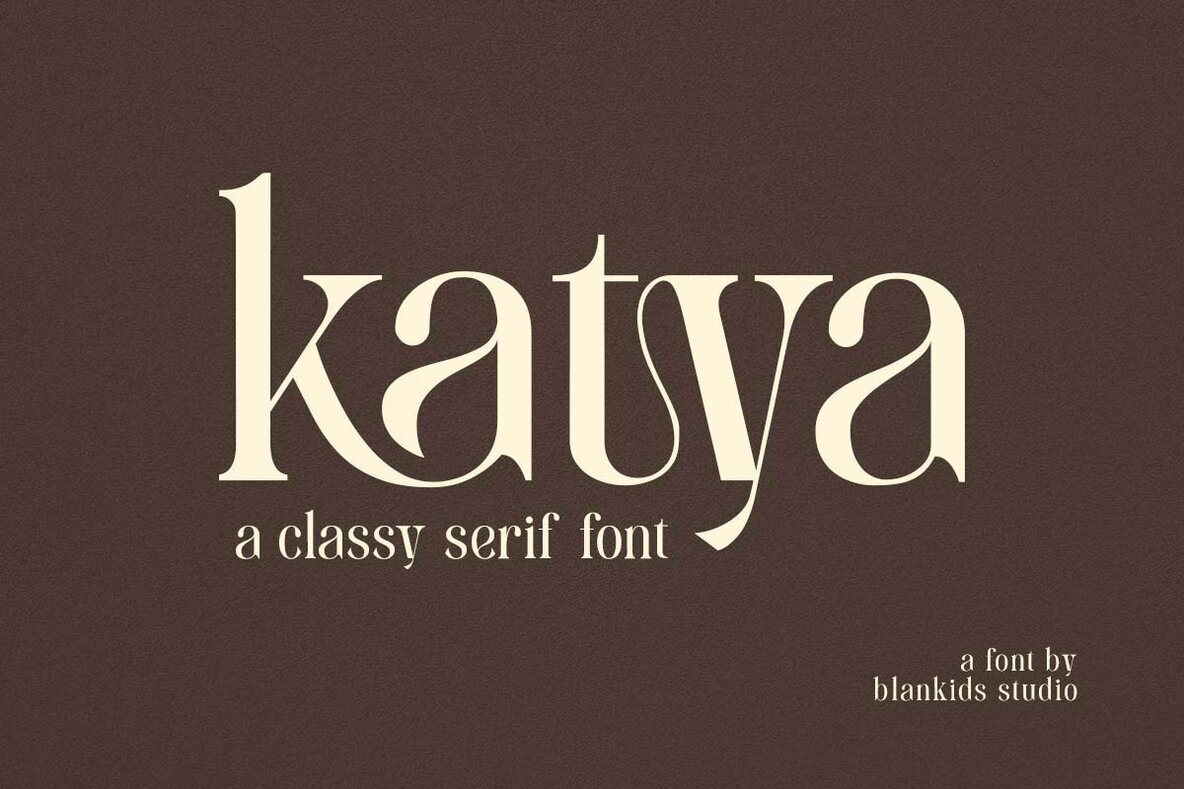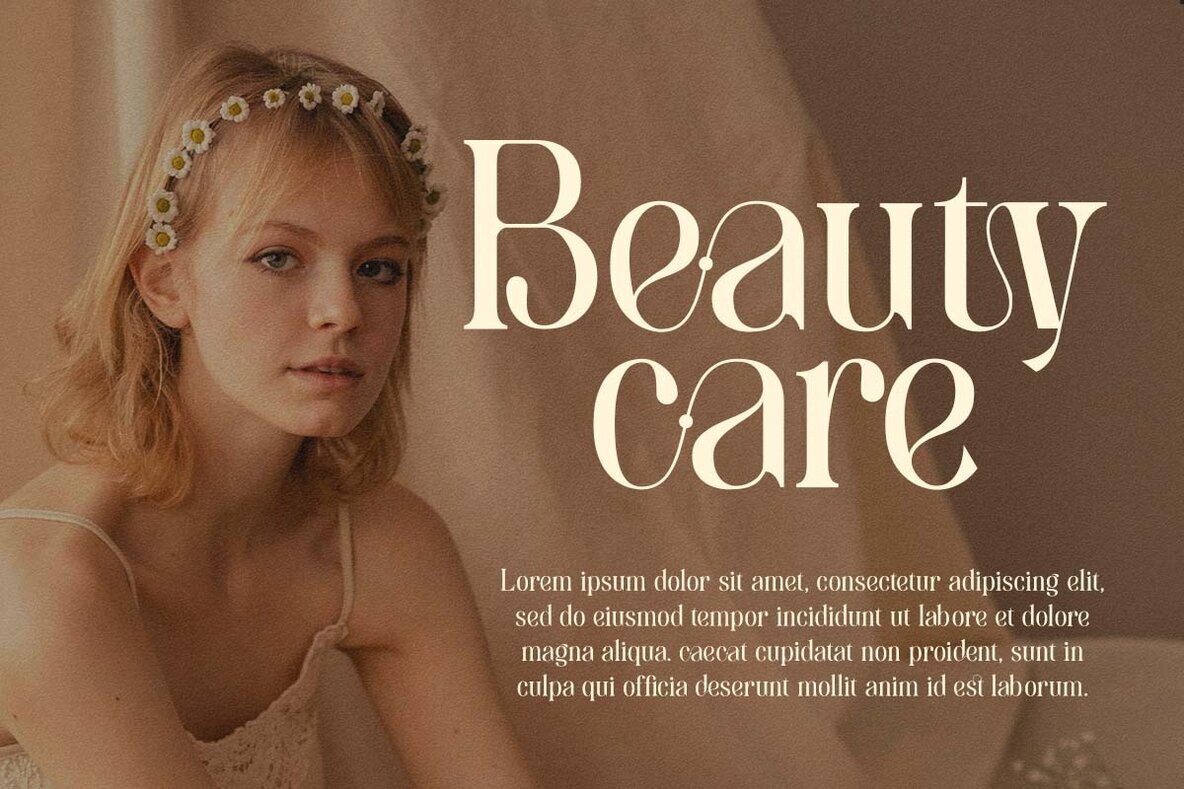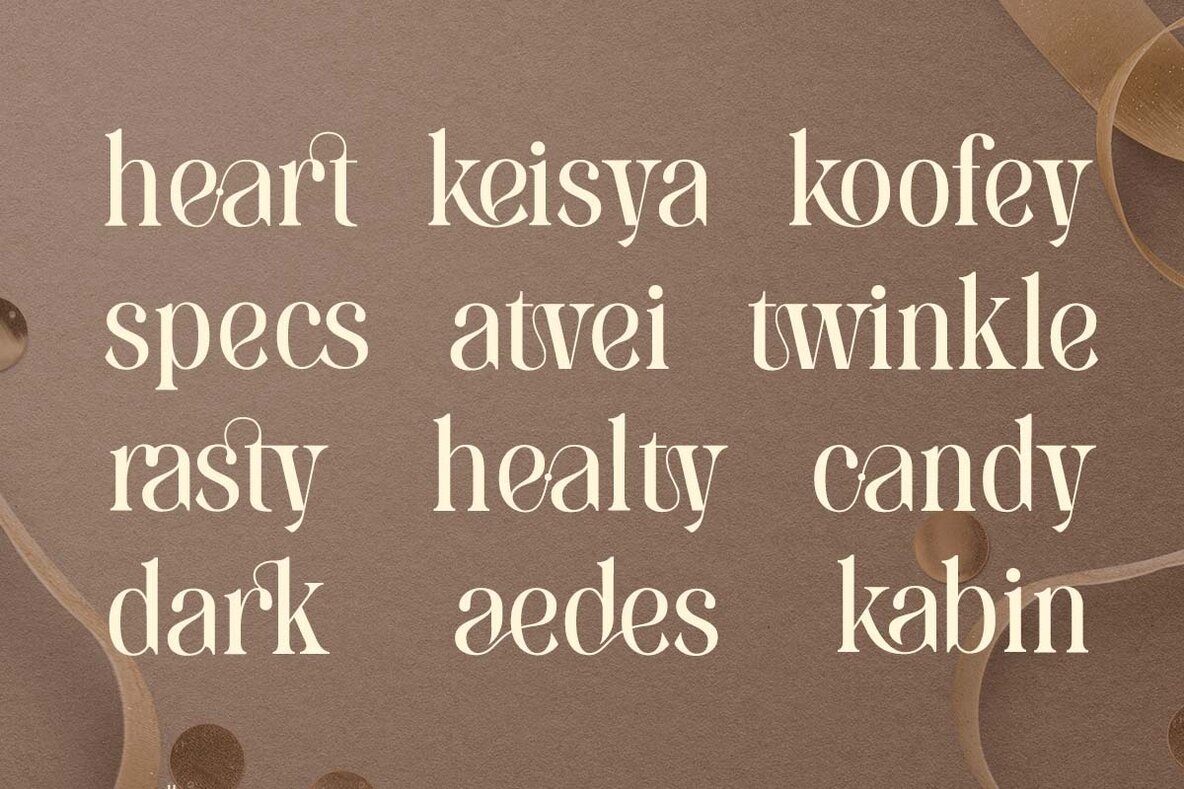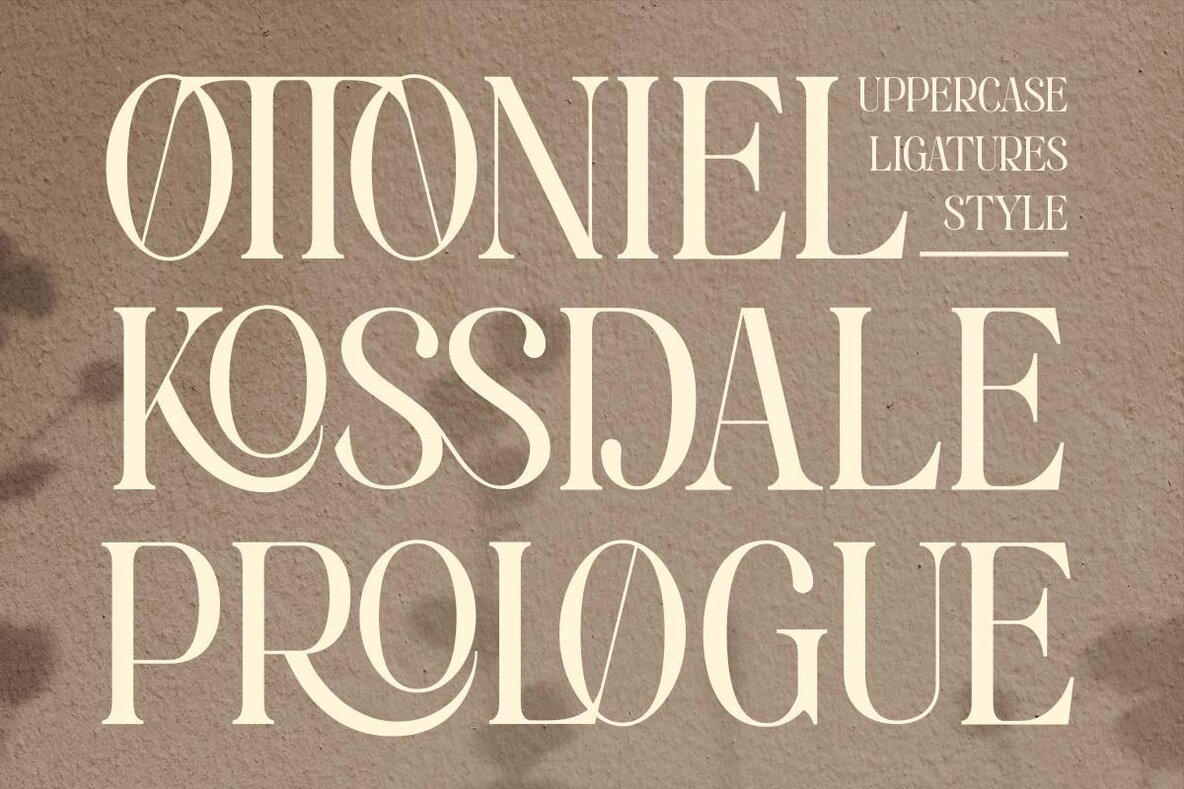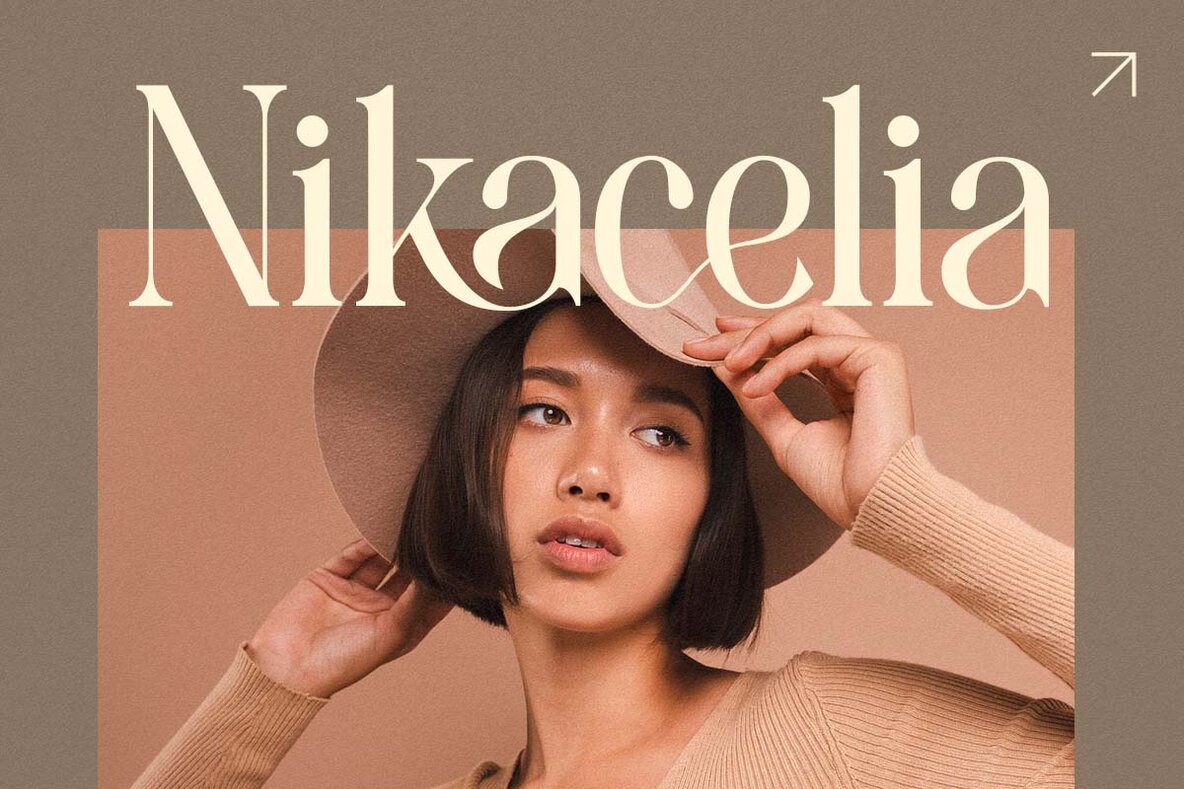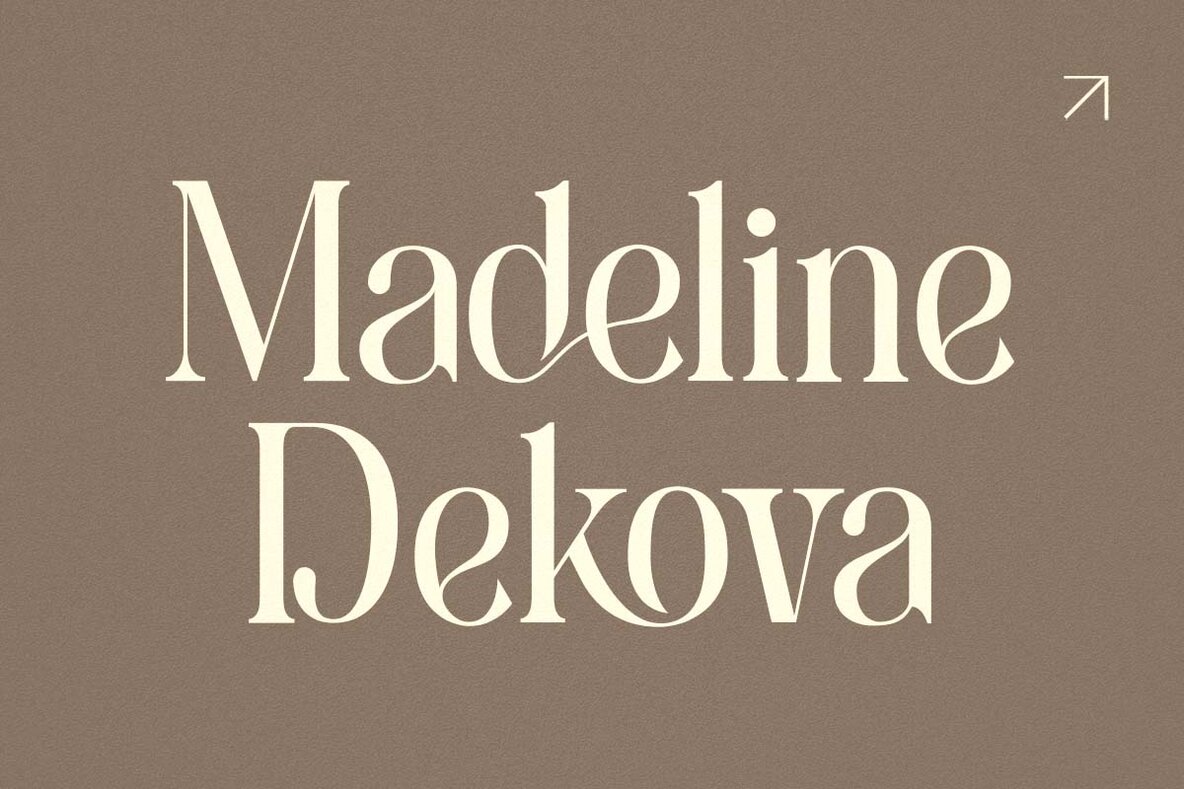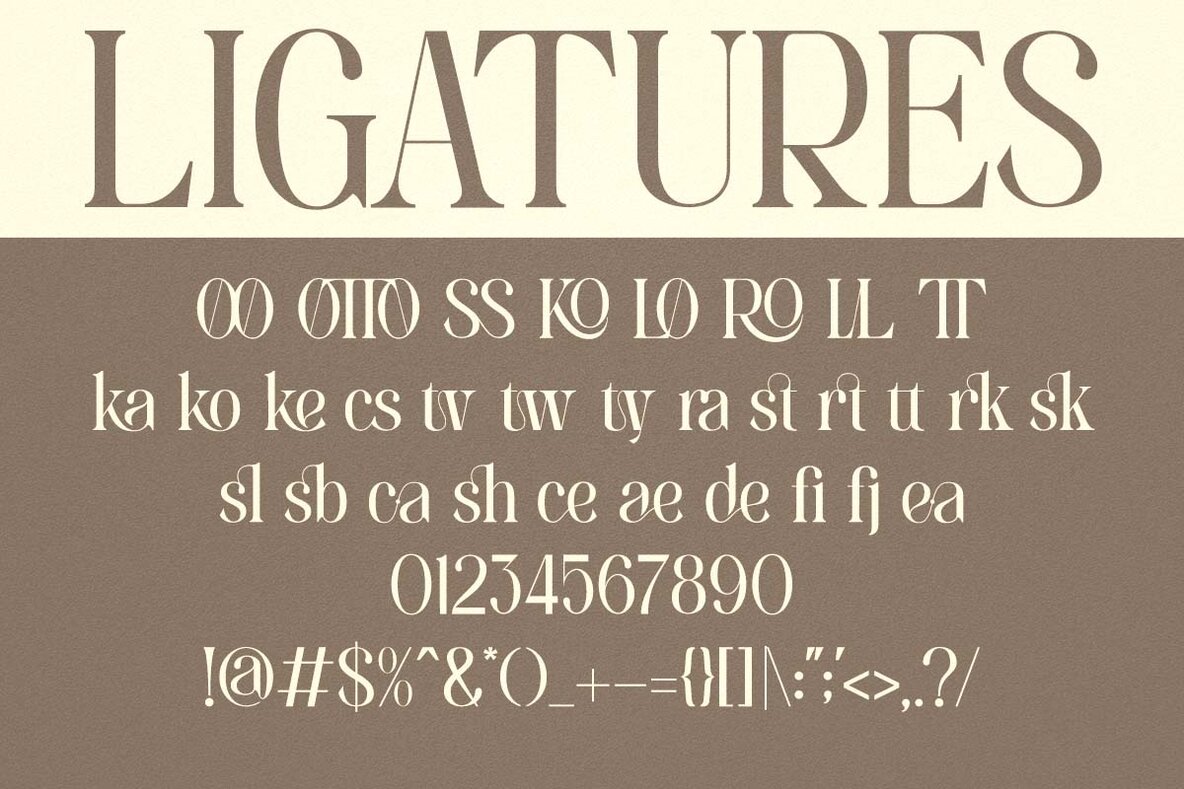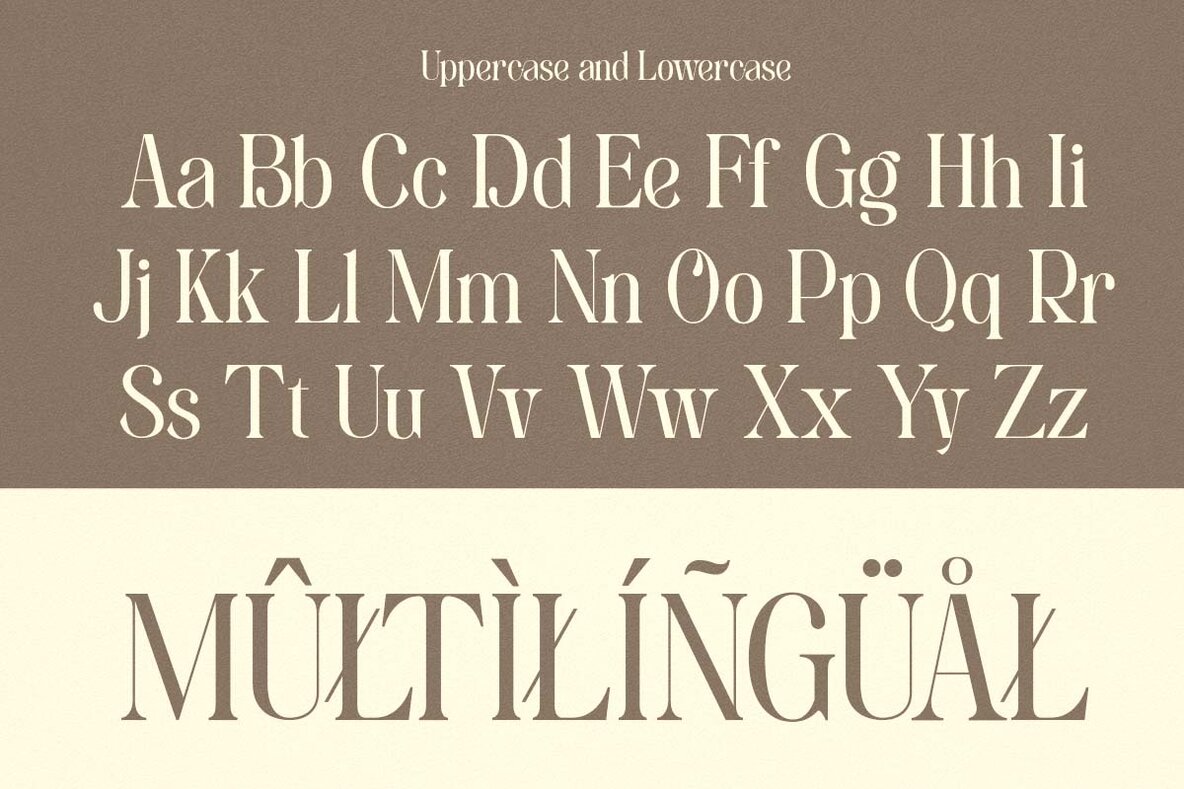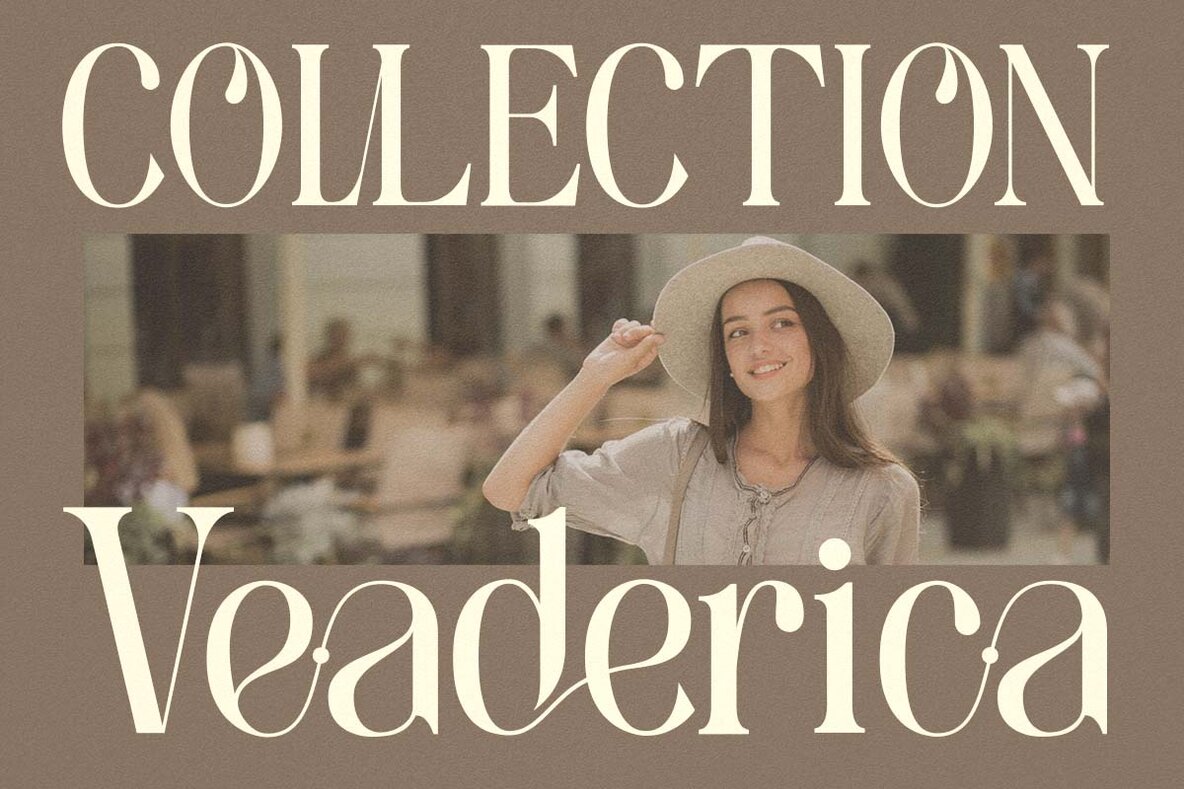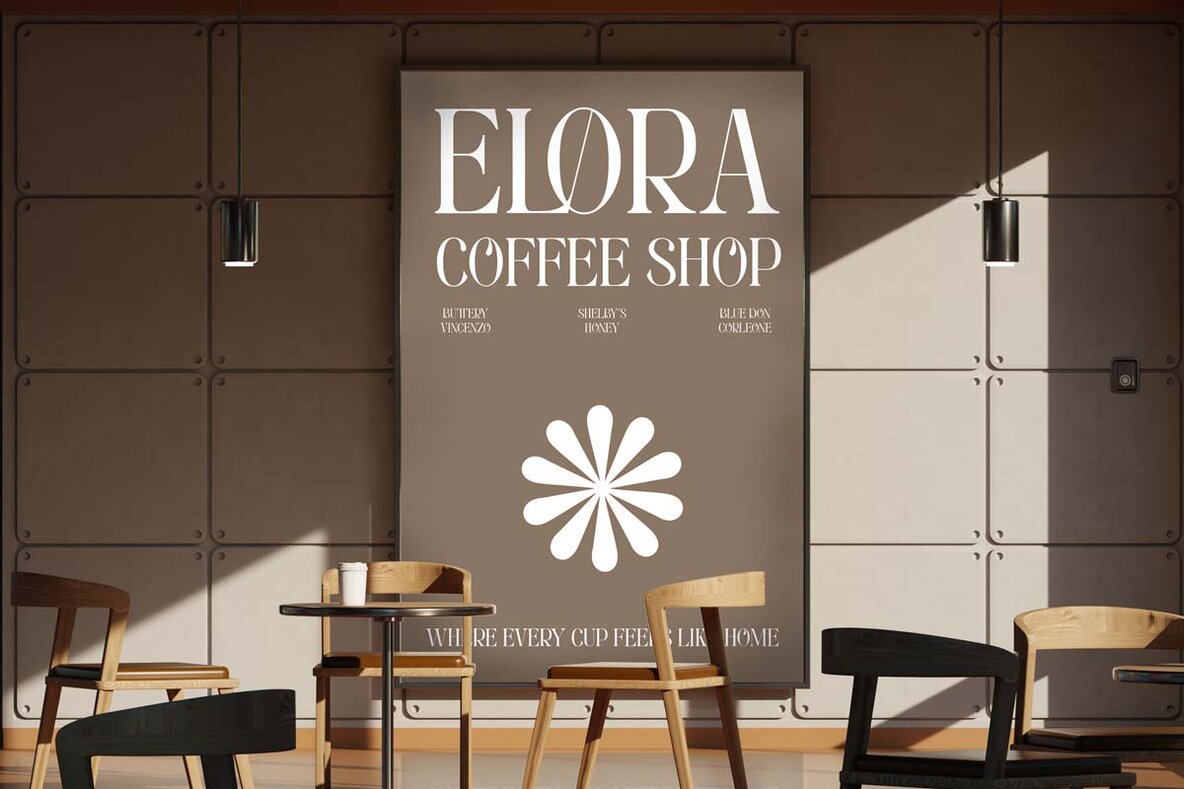
Katya Font
Katya
Introducing Katya, a Luxury Serif Font crafted by Blankids Studio. This elegant font is perfect for enhancing the visual appeal of professional branding projects, including logotypes, watermarks, posters, and product packaging. Katya offers a chic style that exudes luxury in every letterform. The Katya font supports an impressive range of languages, making it versatile for diverse design needs. From Afrikaans to Zulu, its linguistic reach ensures global usability. Explore the potential of Katya to create captivating designs that stand out.Discover Katya: A Sophisticated Serif Font